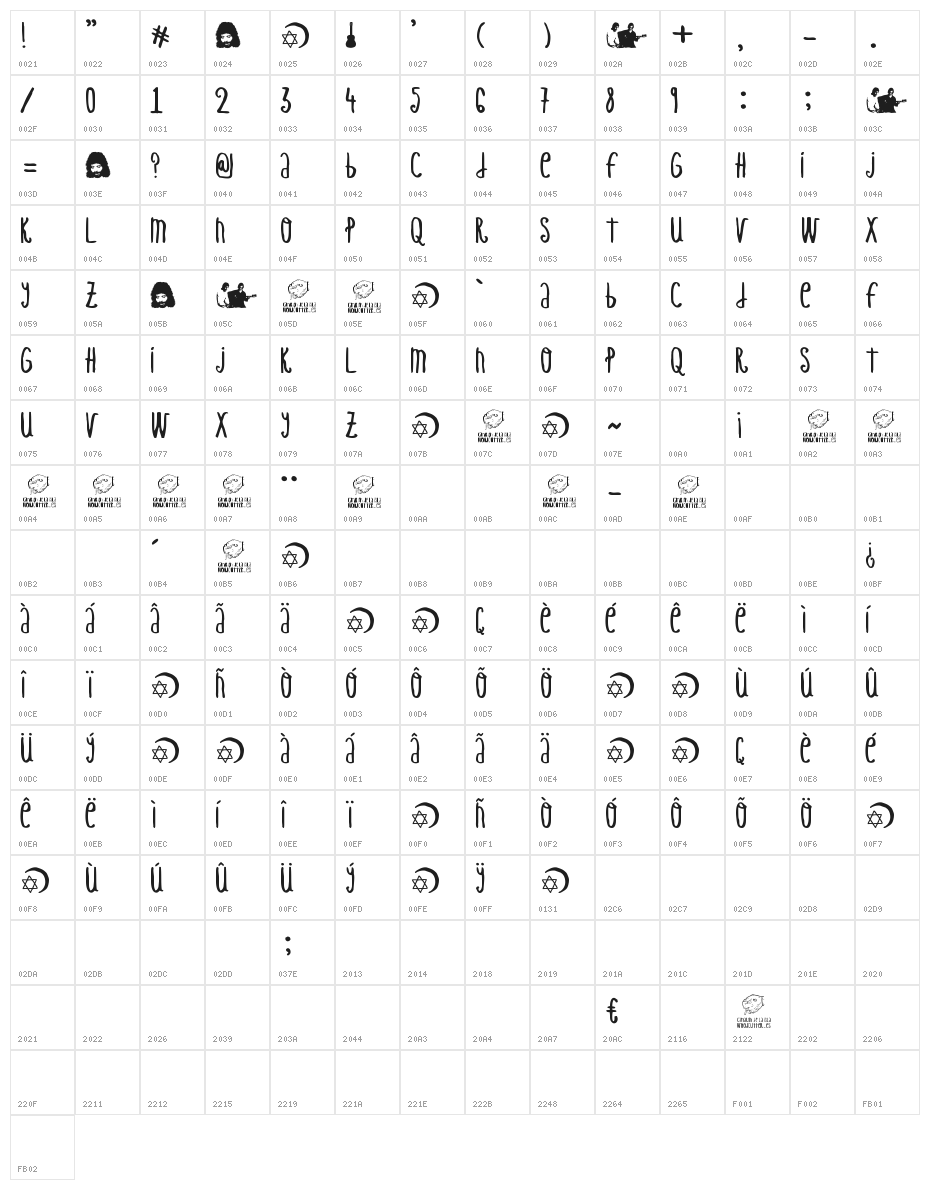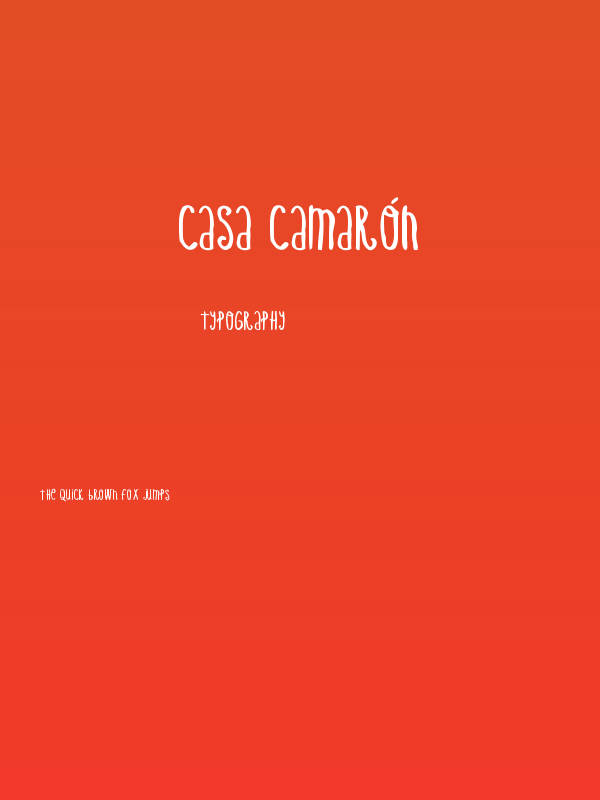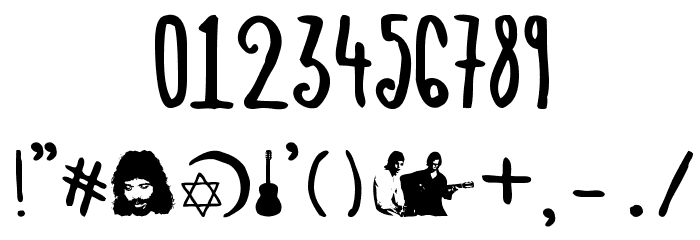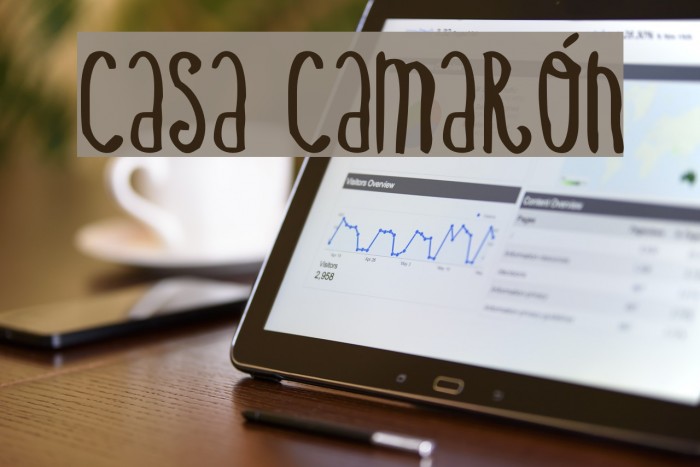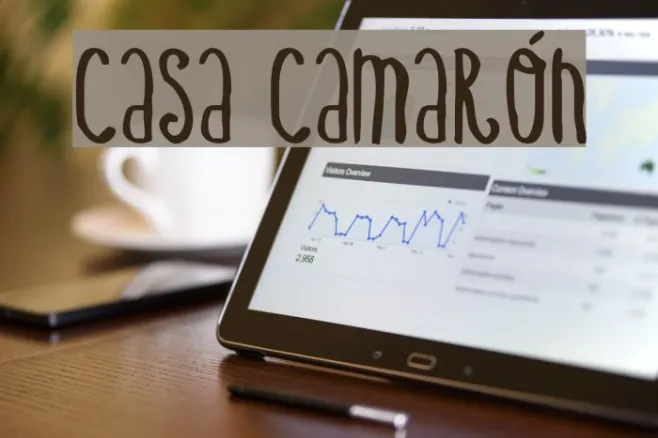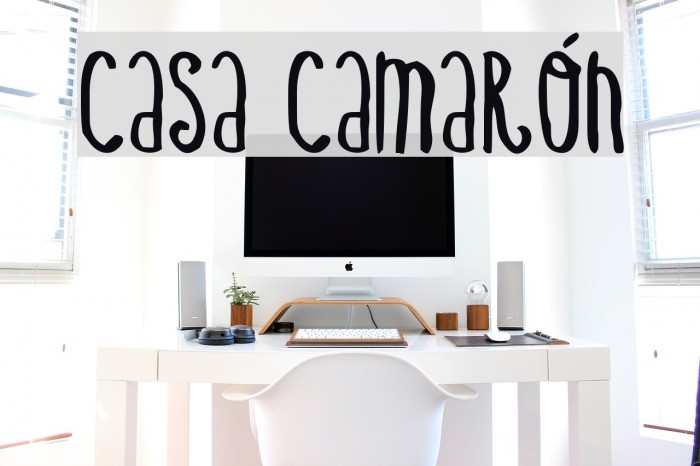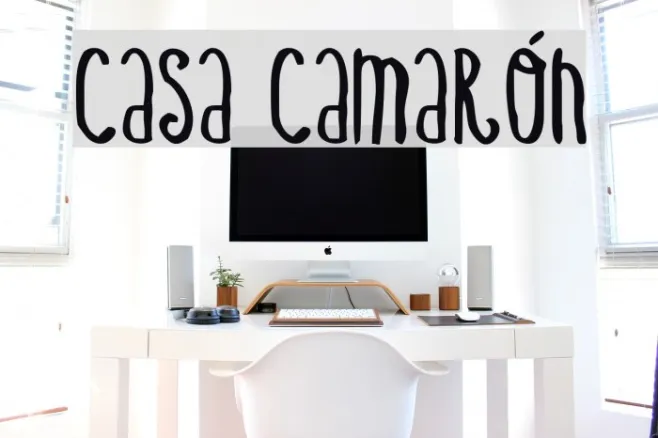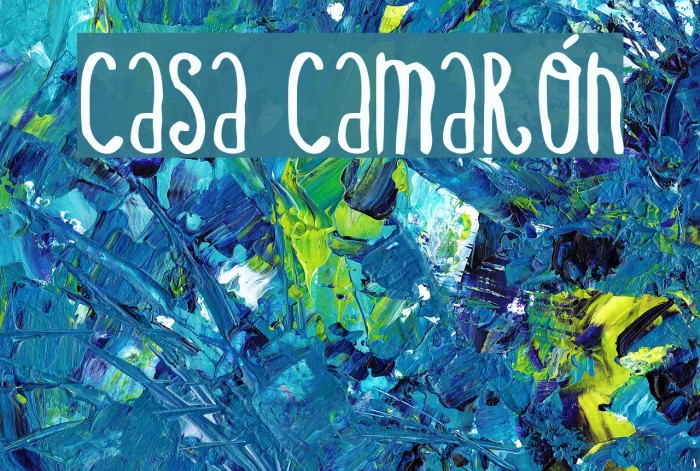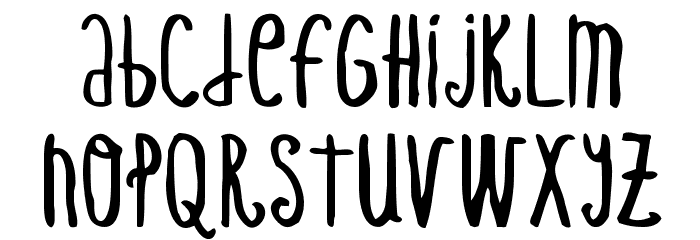
Casa Camarón Font
Casa Camarón Description
This font features a playful and artistic style with a hand-drawn appearance. The characters are slightly irregular, giving them a whimsical and informal feel. The strokes are bold and rounded, with a consistent thickness that adds to the font's approachable and friendly nature. The uppercase and lowercase letters maintain a cohesive look, while the numbers and special characters complement the overall design. This font is ideal for projects that require a creative and relaxed vibe, such as children's books, casual branding, or artistic posters.